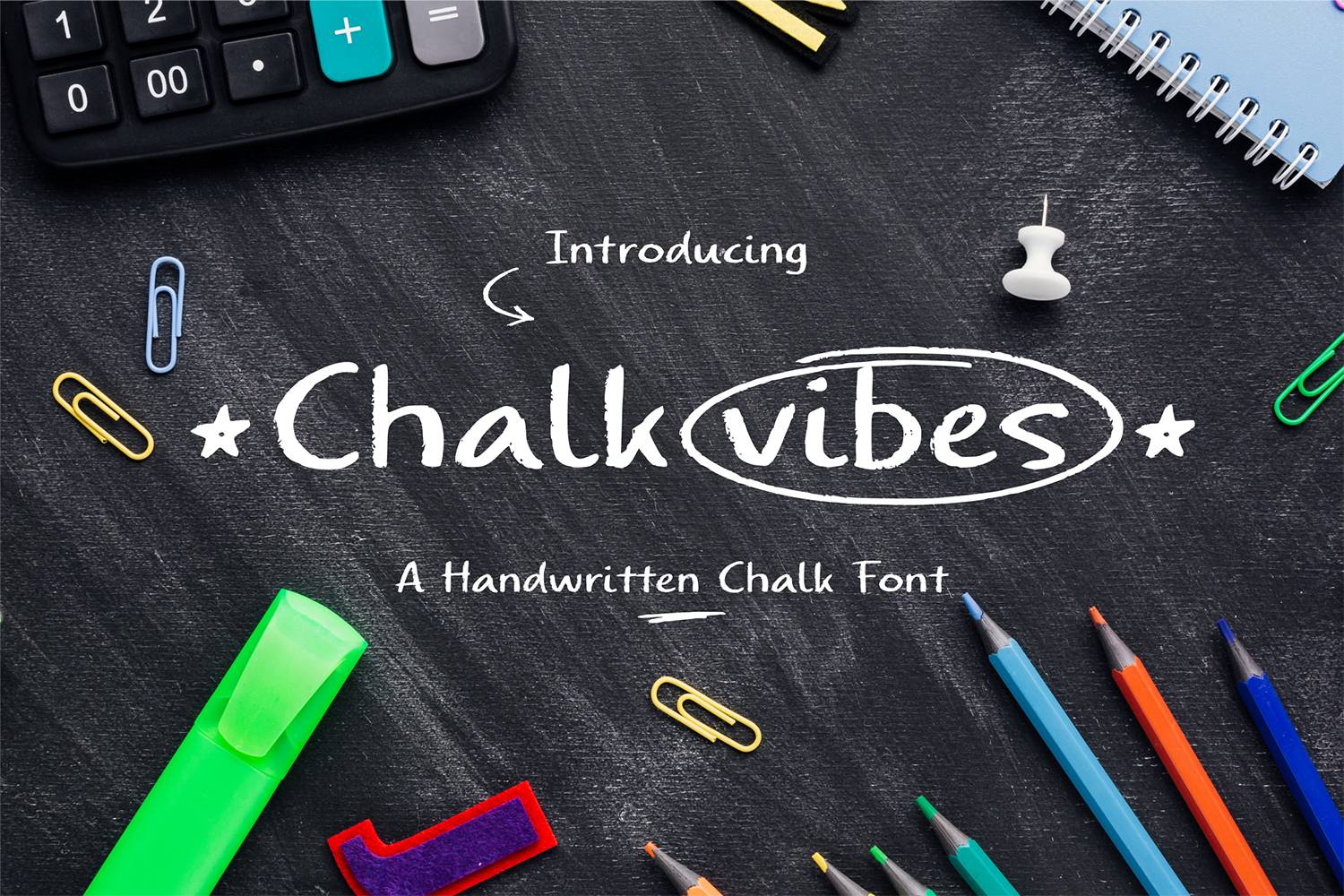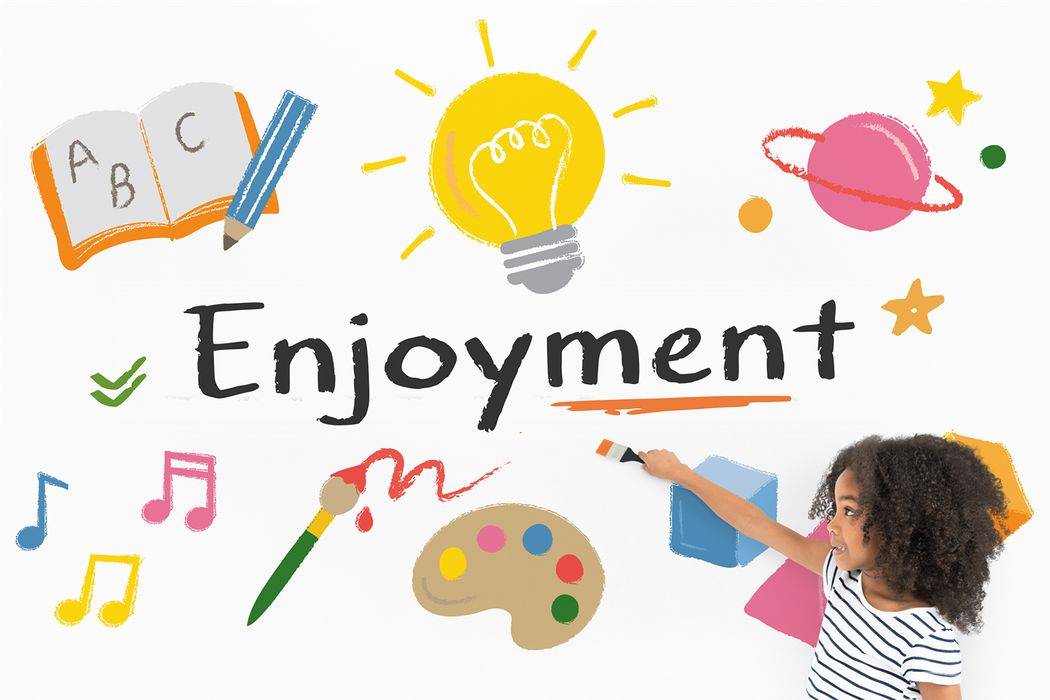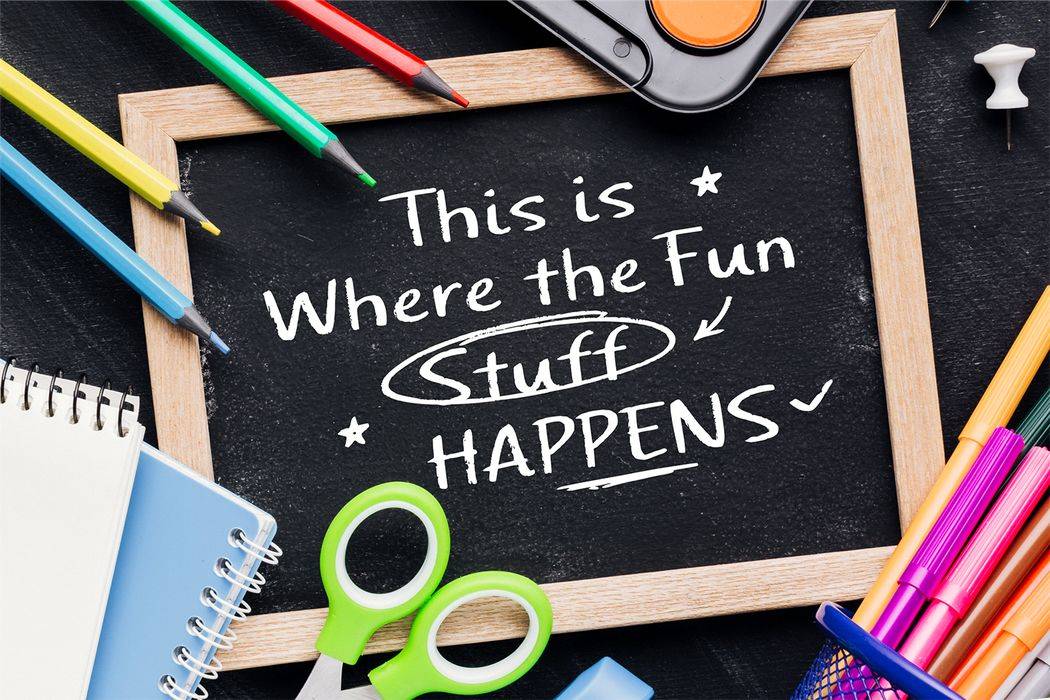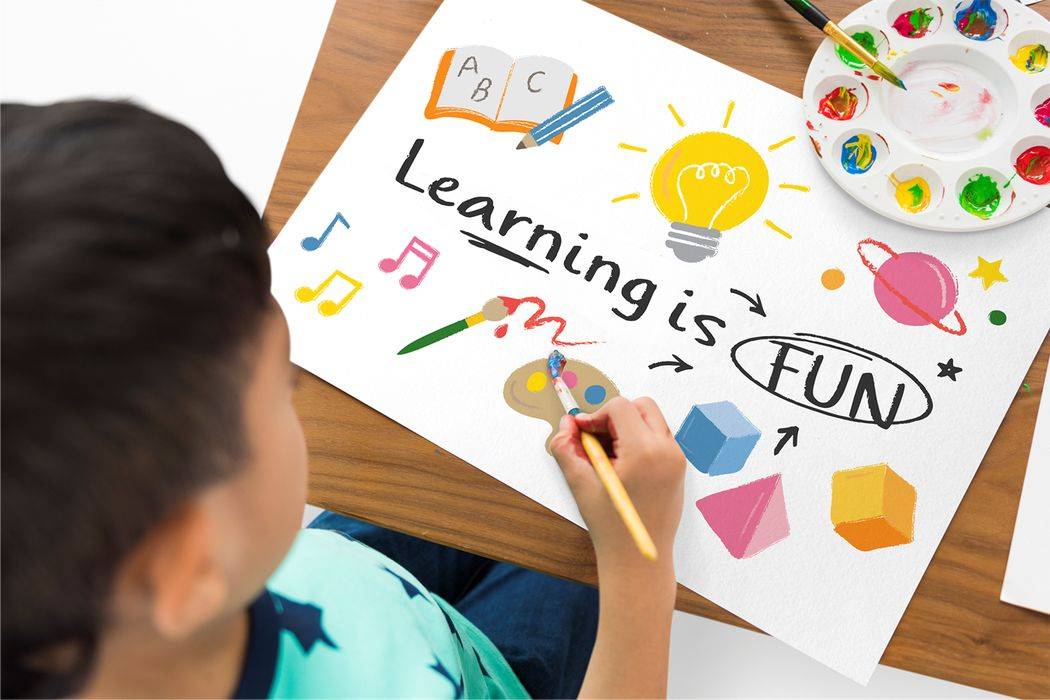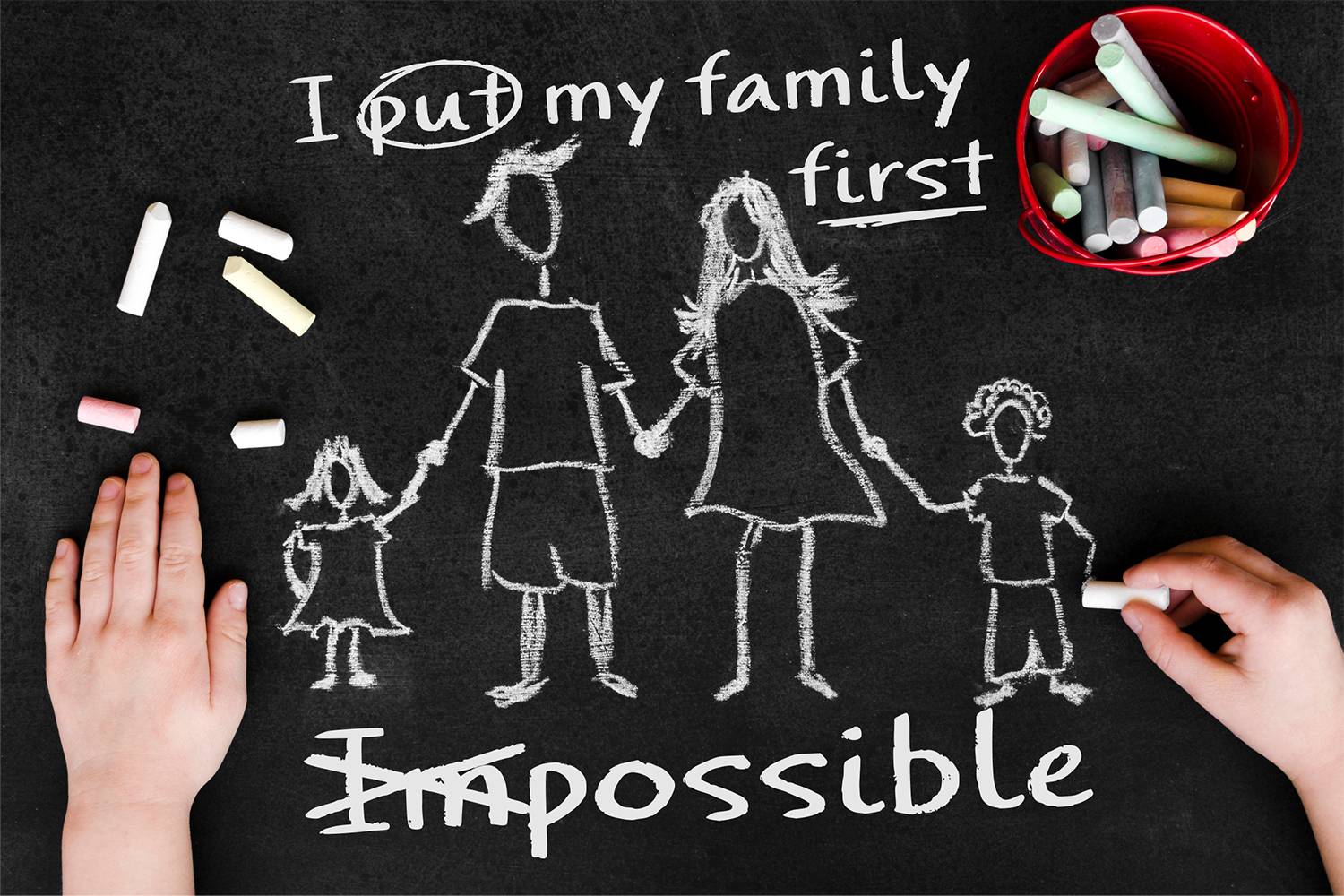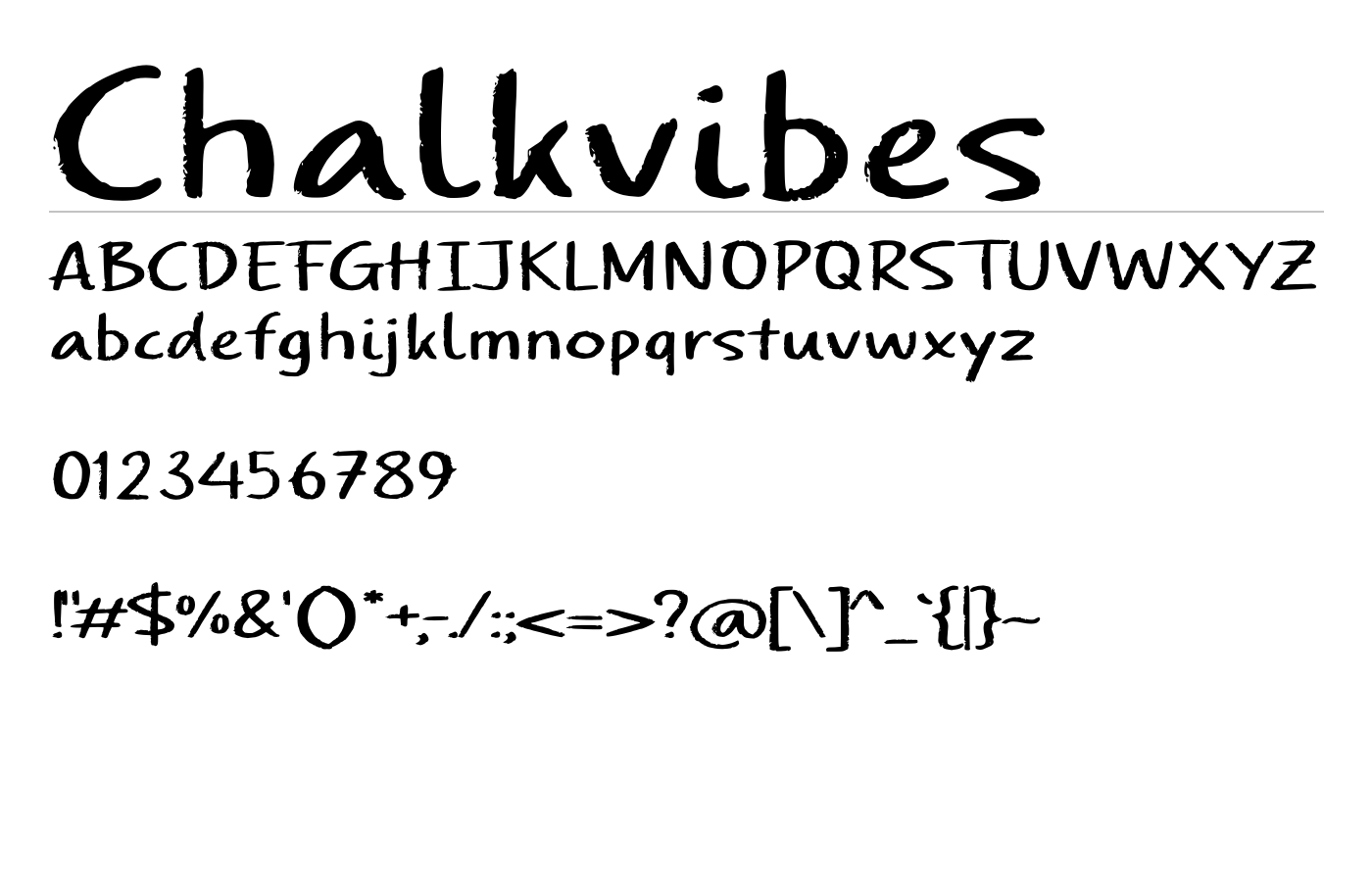
Chalkvibes is a playful and informal sans serif font that mimics the texture of chalk writing, featuring irregular, slightly rough edges that give it a hand-drawn, organic feel. Its moderate weight and lively letterforms make it ideal for creative projects, casual branding, and educational materials where a friendly, approachable vibe is desired. This font works well in headings, posters, and logos that aim to evoke creativity, warmth, and a touch of nostalgia.
Chalkvibes Font
About Chalkvibes Font